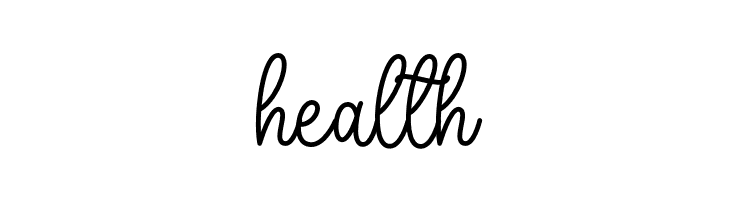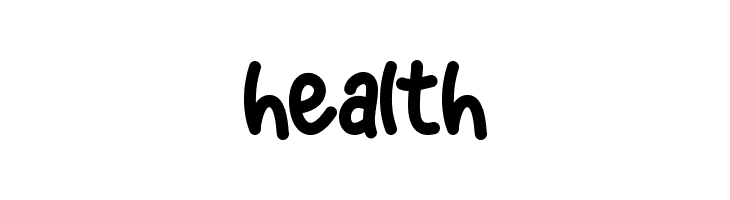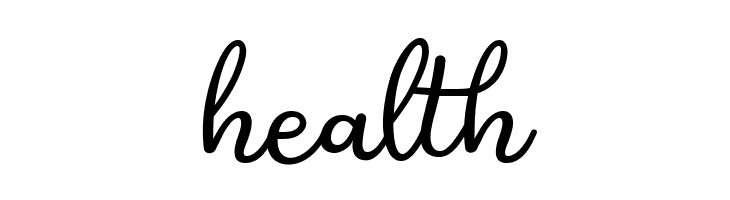
A playful, bold sans-serif font with a rustic charm and rounded, condensed characters.
A charming script font with flowing, connected letters and elegant flourishes.
A charming handwritten script with fluid, graceful strokes and decorative flair.
A charming, handwritten font with tall, narrow letters and a clean appearance.
A charming and flowing script font with elegant, cursive letterforms.
A playful, flowing script font with smooth, continuous strokes and a handwritten charm.
A playful, bold font with rounded, bubbly characters and a whimsical charm.
A charming, elegant script font with a handwritten, festive style.
A festive and elegant script font with flowing, cursive letters and whimsical charm.
A charming and fluid script font with elegant, connected letters.